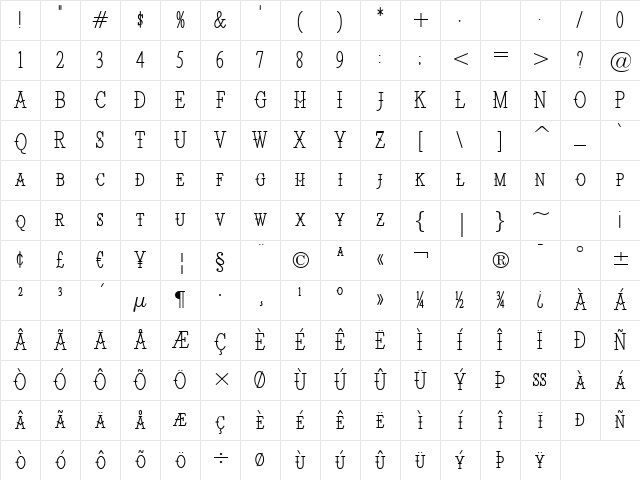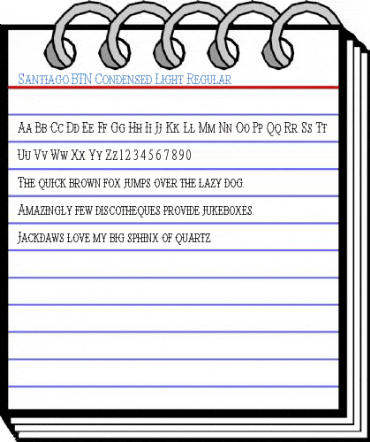
Santiago BTN Condensed Light Regular Free Font
Santiago BTN Condensed Light Regular
Complete Santiago BTN Condensed Light Regular glyph index. Displaying only characters natively supported by Santiago BTN Condensed Light Regular font.
Design Context for Santiago BTN Condensed Light
Santiago BTN Condensed Light is a composed and adaptable typeface that performs quietly and consistently across a wide range of design contexts. Its slender proportions lend an understated elegance to any composition. Its narrow stance lets it pack a punch even in space-constrained designs.
A practical choice for tight layouts, multi-column editorial design, and space-efficient signage.
Pro Tip: Use Santiago BTN Condensed Light in both headline and body roles to test its range before committing to a single application.